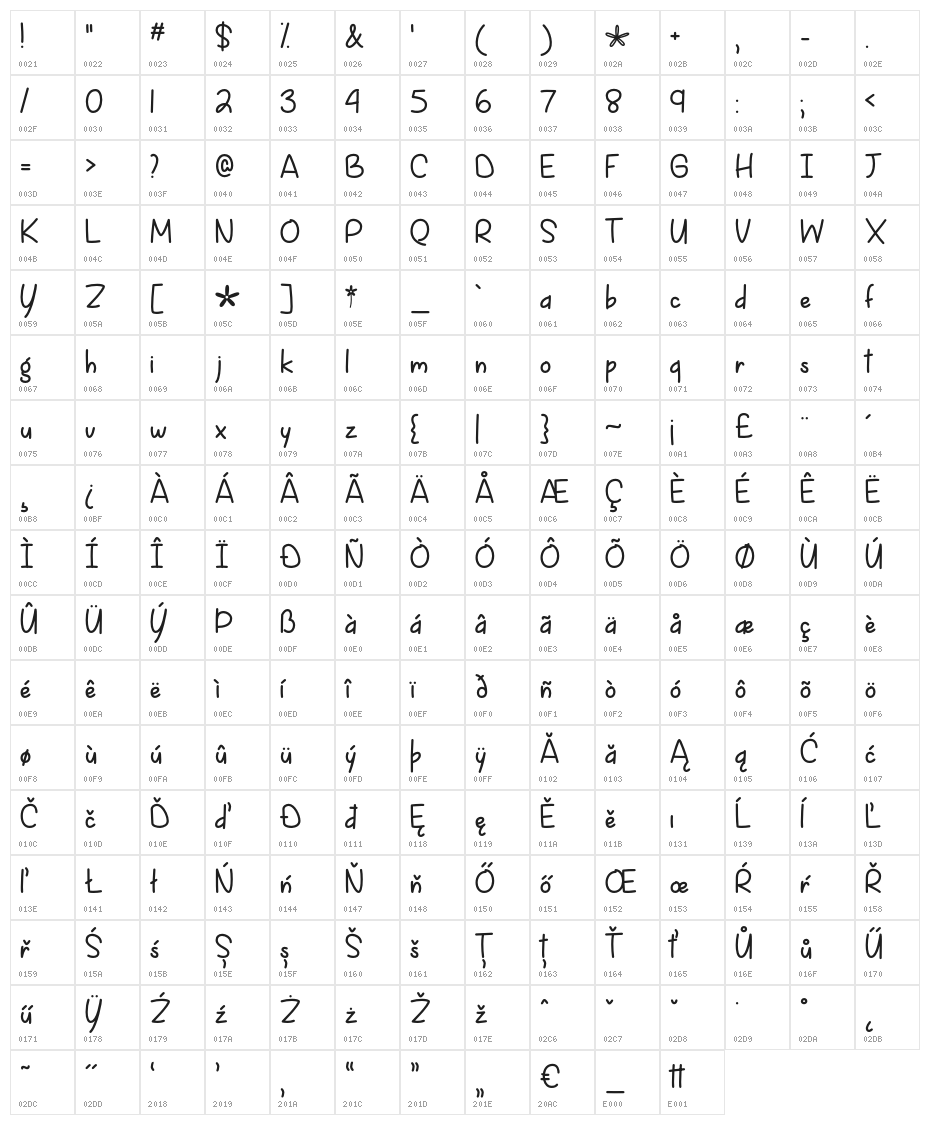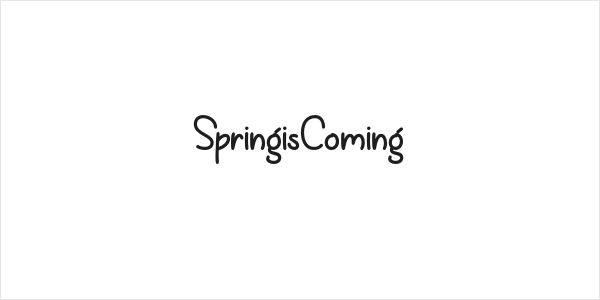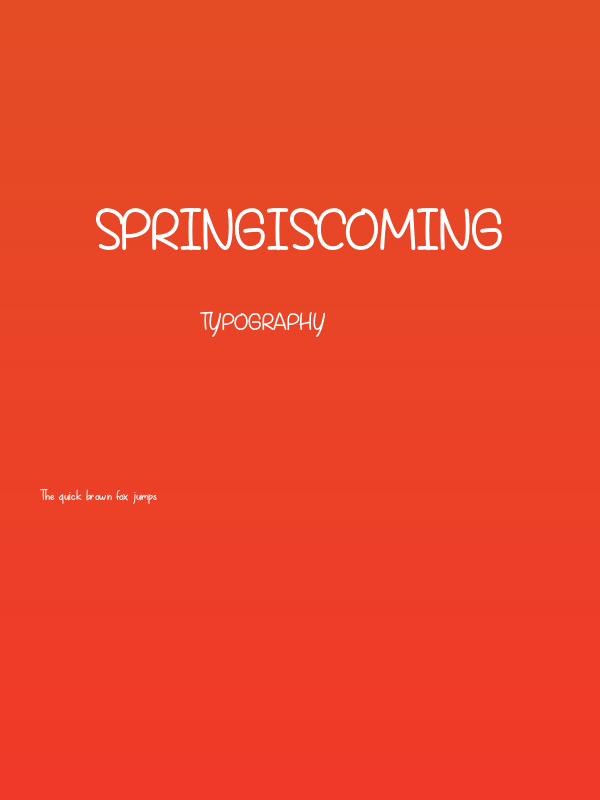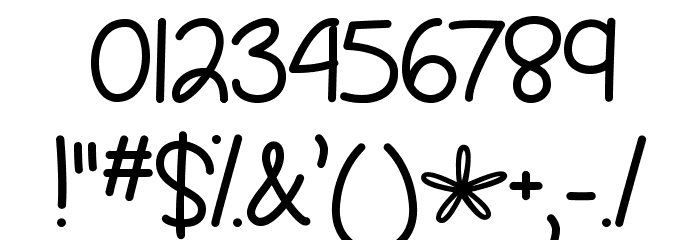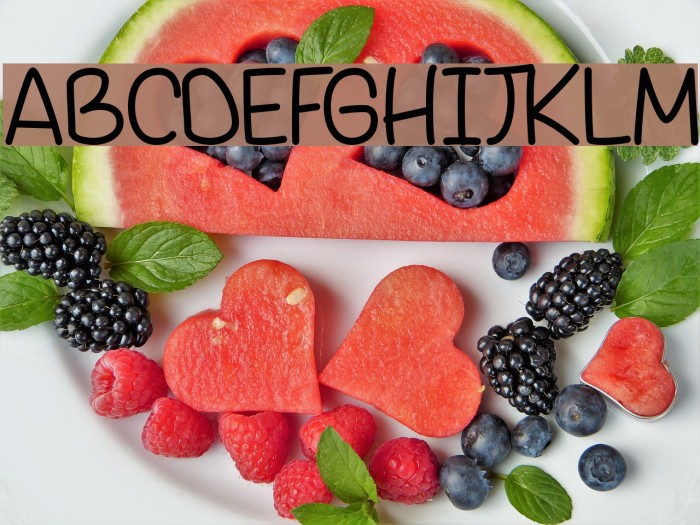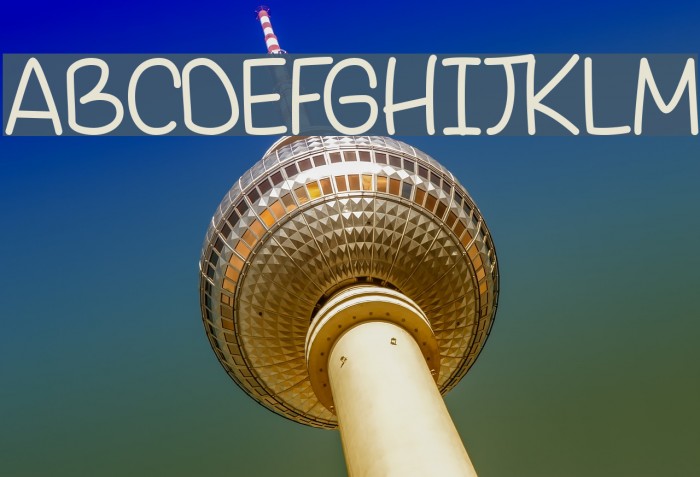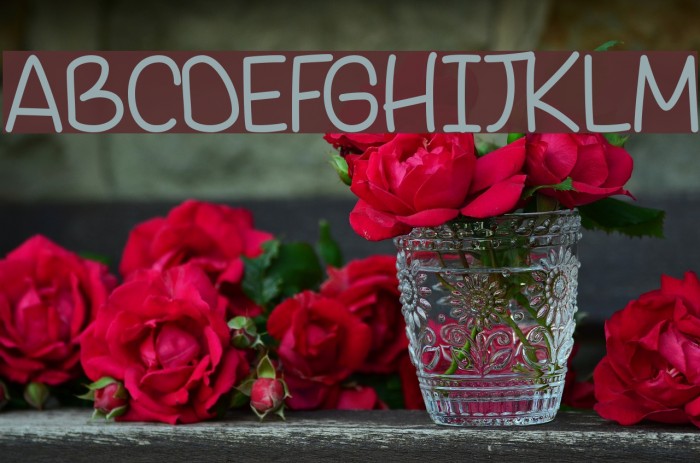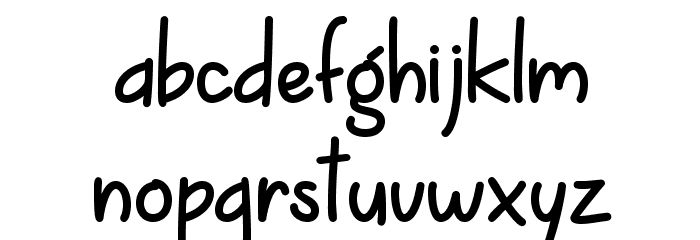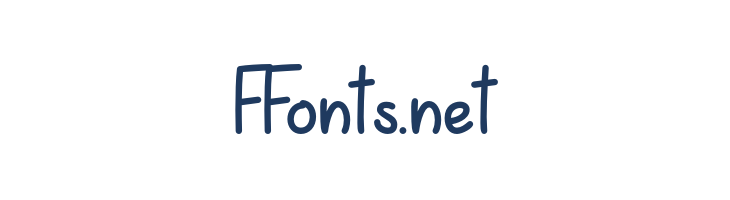
SpringisComing Font
SpringisComing Description
This playful and casual font features a handwritten style with a friendly and approachable appearance. The letters are slightly rounded with a consistent stroke width, giving it a uniform look while maintaining a sense of individuality in each character. The uppercase letters are bold and prominent, while the lowercase letters are more relaxed and flowing. The numbers and special characters maintain the same playful aesthetic, making the font versatile for various uses. Its informal style is perfect for projects that require a personal touch or a fun, lighthearted vibe.
| Use Case | Headlines, Informal text, Branding |
| Proposed Projects | Ideal for greeting cards, children's books, casual invitations, and playful branding. |